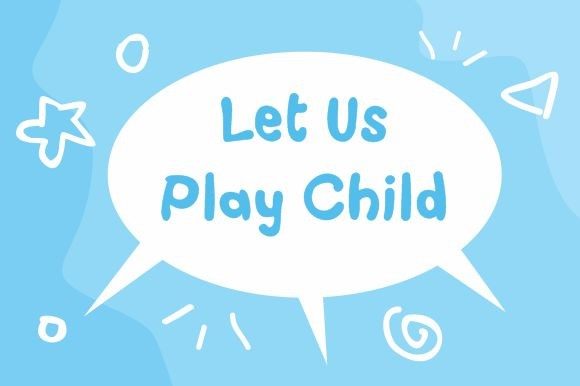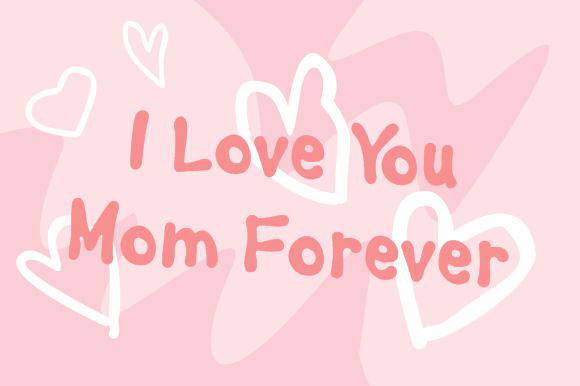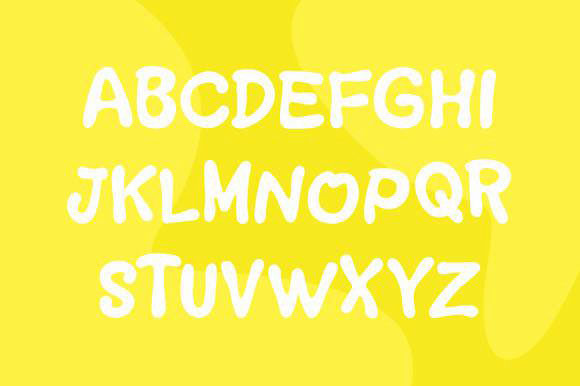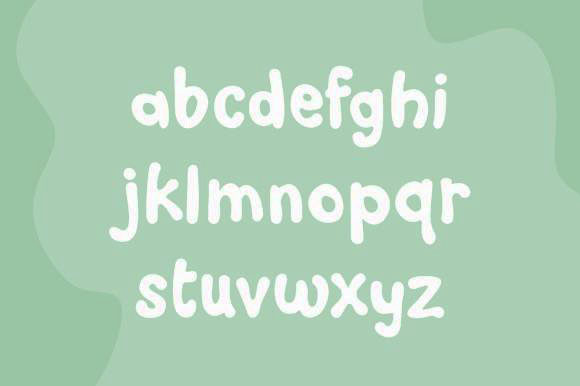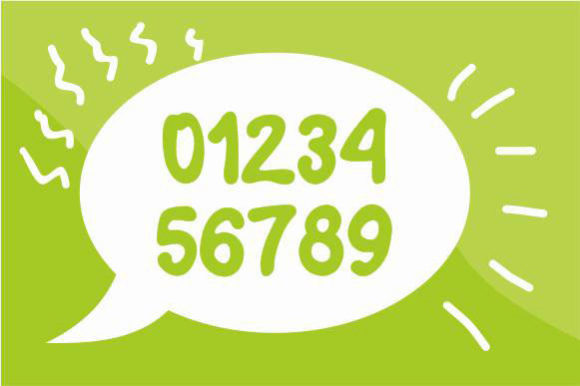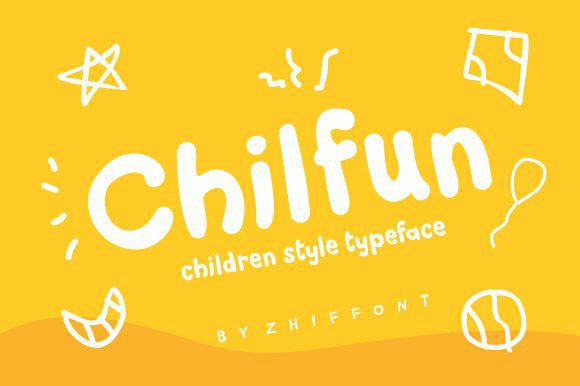
Introducing Chilfun Font: The Ultimate Choice for Fun and Playful Designs
Are you looking for a font that can add a touch of playfulness and authenticity to your designs? Look no further than Chilfun Font! This fun and playful display font is perfect for any children activity or school project, and is sure to bring a smile to anyone’s face.
What is Chilfun Font?
Chilfun Font is a unique and creative typeface that is designed to evoke a sense of fun and playfulness. Its bold and colorful letters are perfect for making a statement, and its friendly and approachable feel makes it ideal for use in designs for children.
Characteristics of Chilfun Font
So, what makes Chilfun Font so special? Here are just a few of its key characteristics:
- Playful and Fun: Chilfun Font is designed to be fun and playful, with bold and colorful letters that are sure to grab attention.
- Authentic and Genuine: This font embodies a sense of authenticity and genuineness, making it perfect for use in designs where you want to convey a sense of friendliness and approachability.
- Perfect for Children: Chilfun Font is specifically designed with children in mind, making it ideal for use in activity sheets, school projects, and other designs for kids.
- Highly Versatile: This font is highly versatile, and can be used in a wide range of designs, from posters and flyers to worksheets and crafts.
Uses for Chilfun Font
So, what can you use Chilfun Font for? The possibilities are endless! Here are just a few ideas to get you started:
- Children’s Activity Sheets: Chilfun Font is perfect for use in children’s activity sheets, such as coloring pages, word searches, and puzzles.
- School Projects: This font is ideal for use in school projects, such as posters, presentations, and reports.
- Crafts and DIY Projects: Chilfun Font can be used in a wide range of crafts and DIY projects, such as card making, scrapbooking, and party decorations.
- Posters and Flyers: This font is perfect for use in posters and flyers for children’s events, such as birthday parties, school plays, and charity events.
Tips for Using Chilfun Font
Here are a few tips for using Chilfun Font in your designs:
- Use it Sparingly: While Chilfun Font is fun and playful, it can be overwhelming if used too much. Use it sparingly to add a touch of playfulness to your designs.
- Pair it with Other Fonts: Chilfun Font pairs well with other fonts, such as serif and sans serif fonts. Experiment with different font combinations to find the perfect look for your design.
- Experiment with Colors: Chilfun Font looks great in a wide range of colors, from bright and bold to pastel and soft. Experiment with different colors to find the perfect look for your design.
In conclusion, Chilfun Font is a fun and playful display font that is perfect for any children activity or school project. Its bold and colorful letters, friendly and approachable feel, and highly versatile design make it a great choice for designers and crafters. Whether you’re creating activity sheets, school projects, or crafts and DIY projects, Chilfun Font is sure to bring a touch of playfulness and authenticity to your designs.